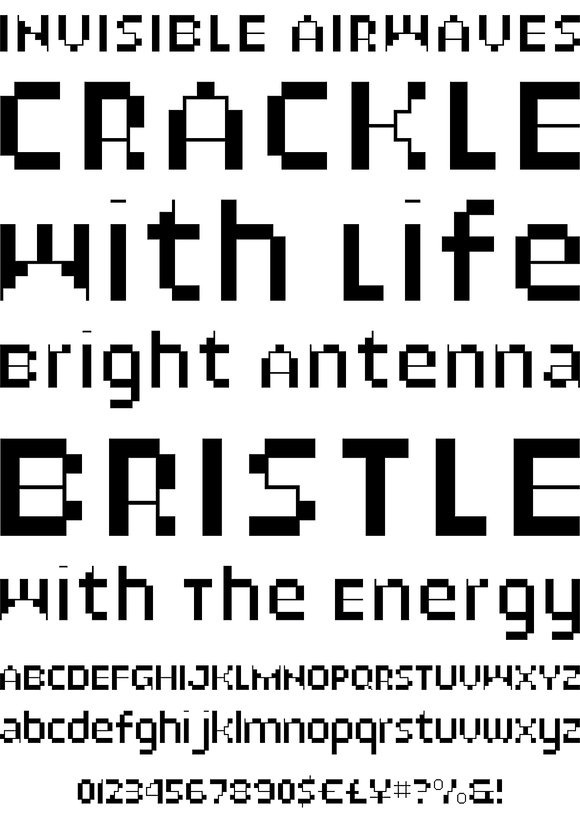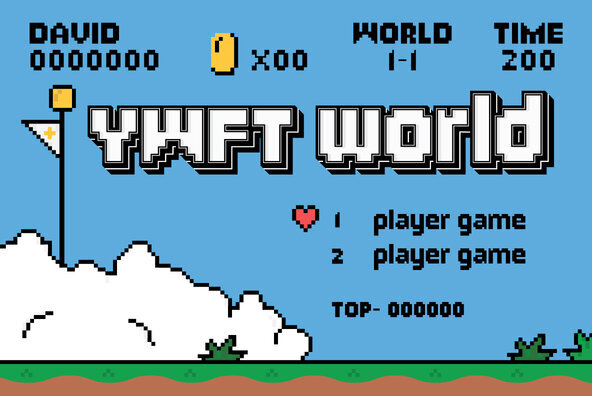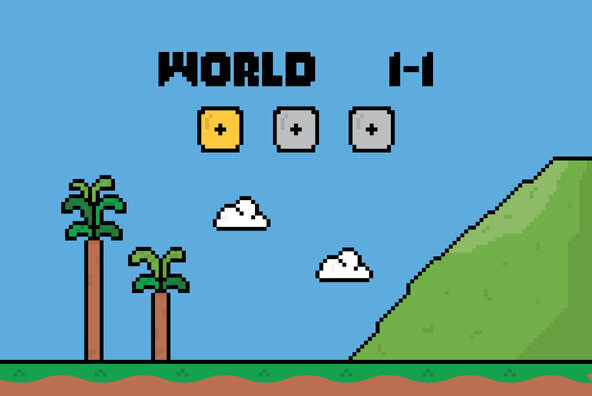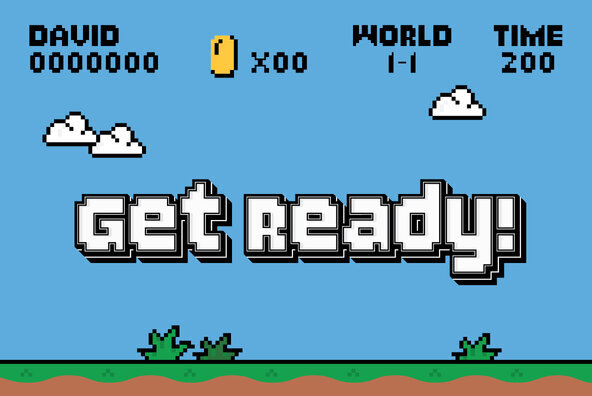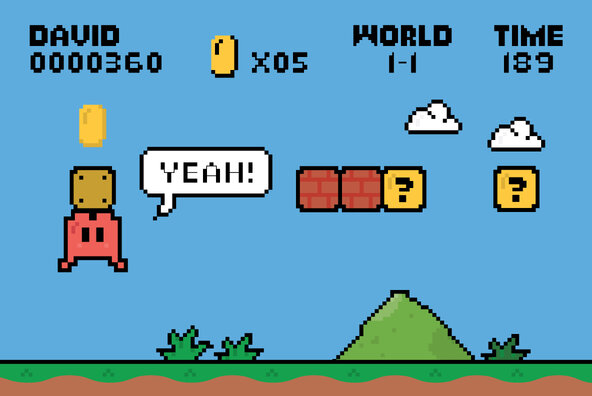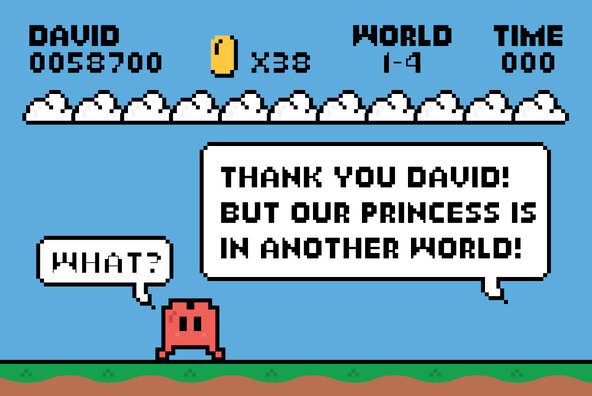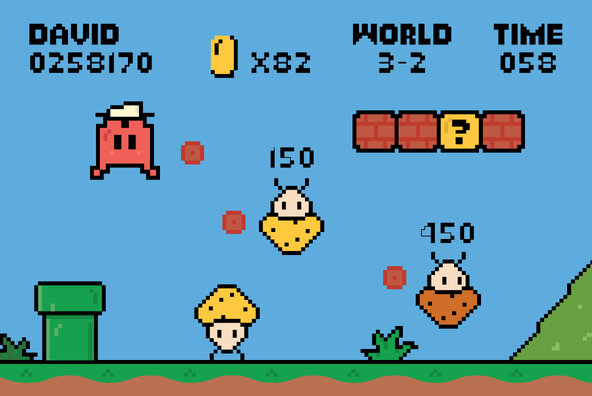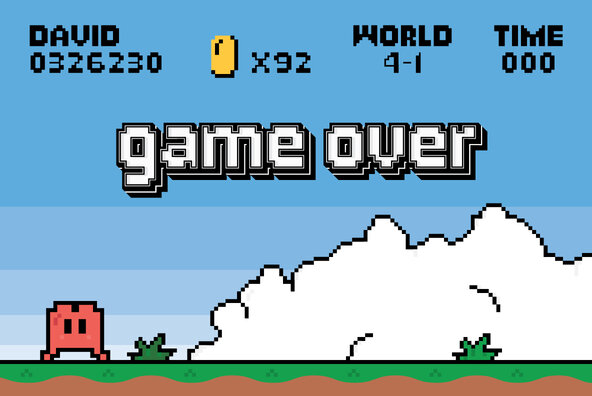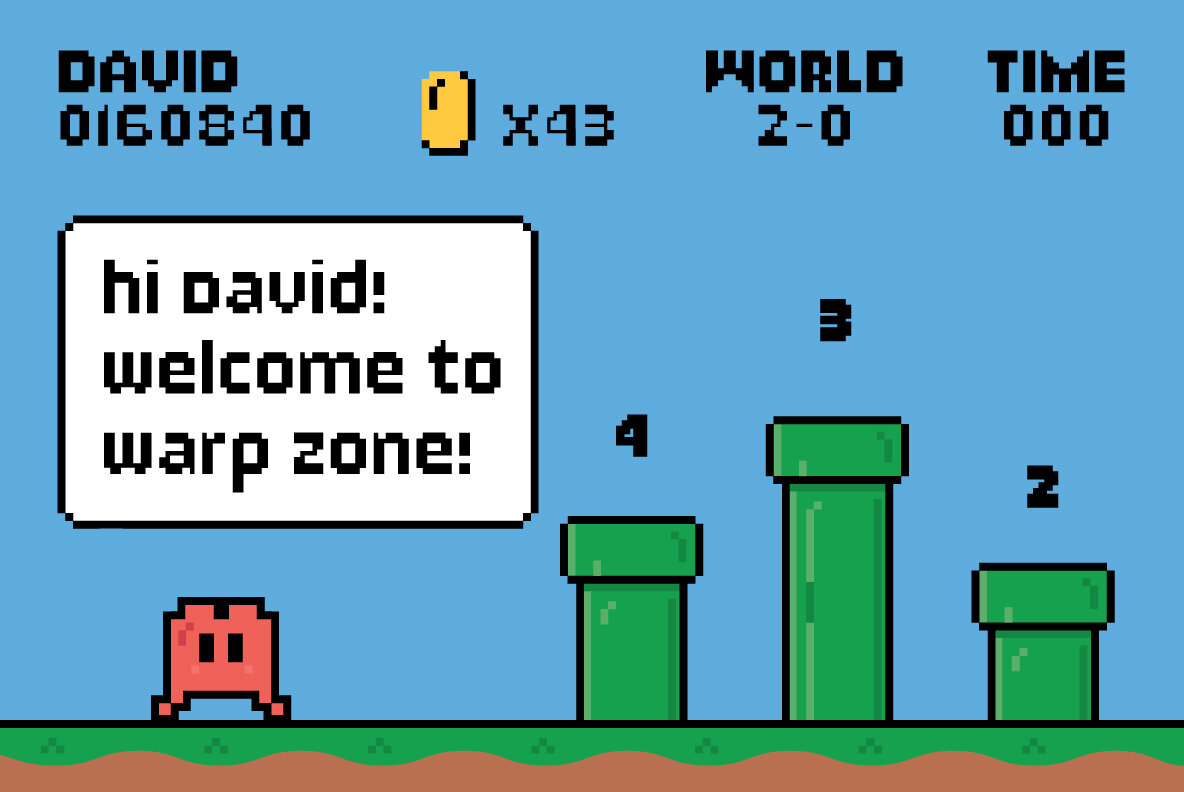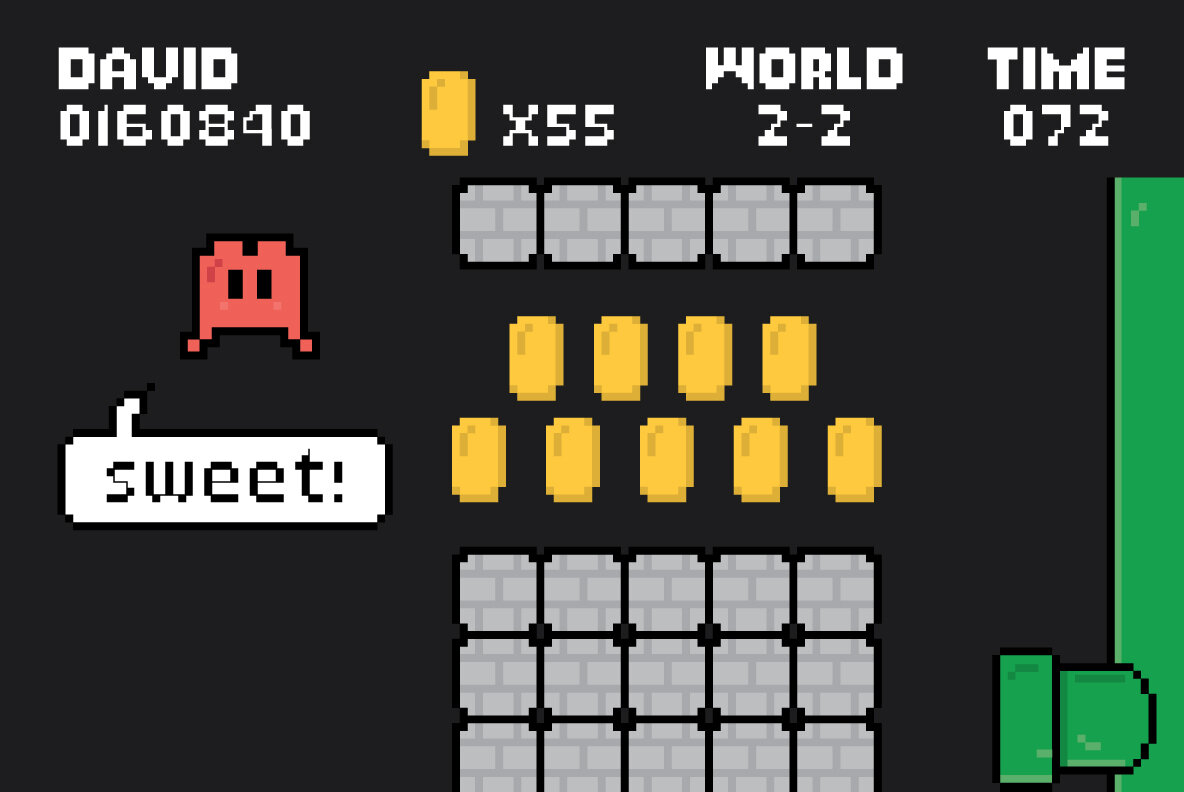
YWFT Bit
YWFT Bit was originally hewn from raw pixels in 1998, then mastered to working format in 2003. You may think YWFT Bit is your typical bitmap affair, but oh, how wrong you would be. With its variety of weights, and unique differences in line widths, YWFT Bit explores new ground in the pixel genre. For heavy masculine headlines, use the ExtraBold version to inflate the Pookas. For a more unique, slender setting, set your message with the thin weight and Avoid Spikes. YWFT Bit was converted to Opentype format in 2010, and was formerly known as Praun. Designed exclusively by Michael Cina and YouWorkForThem.